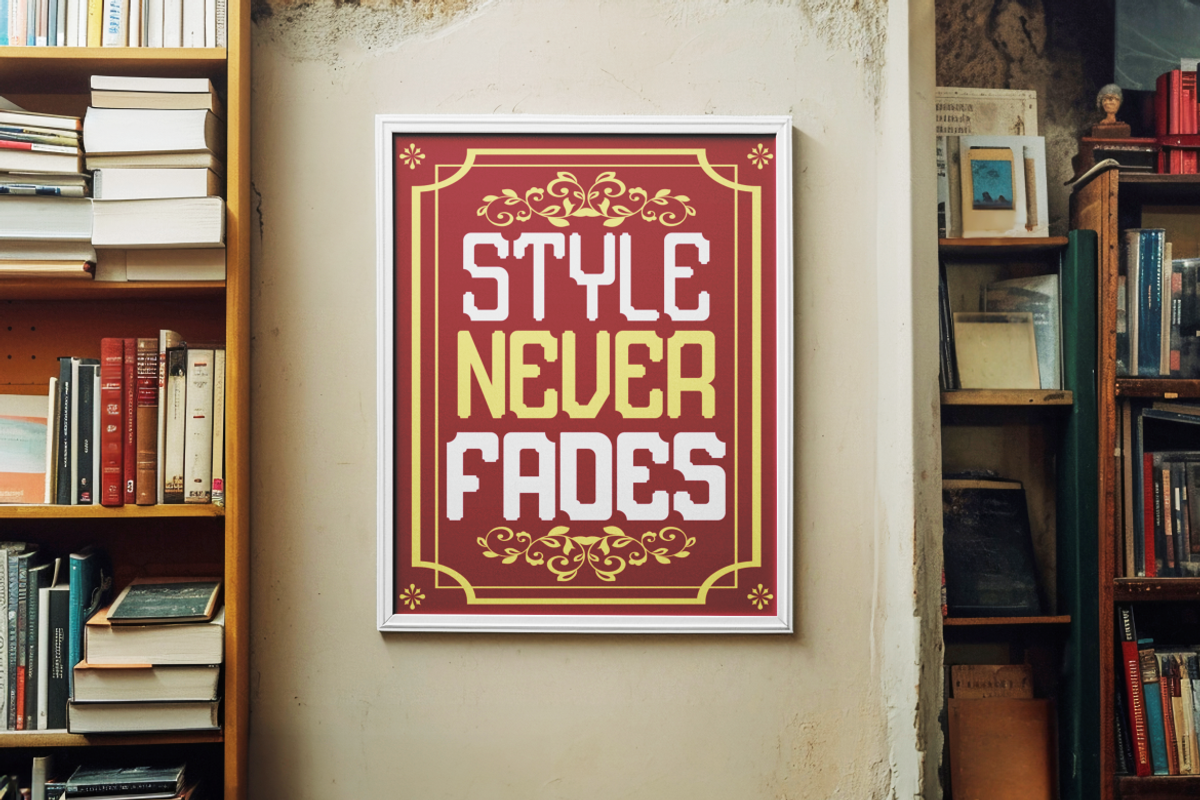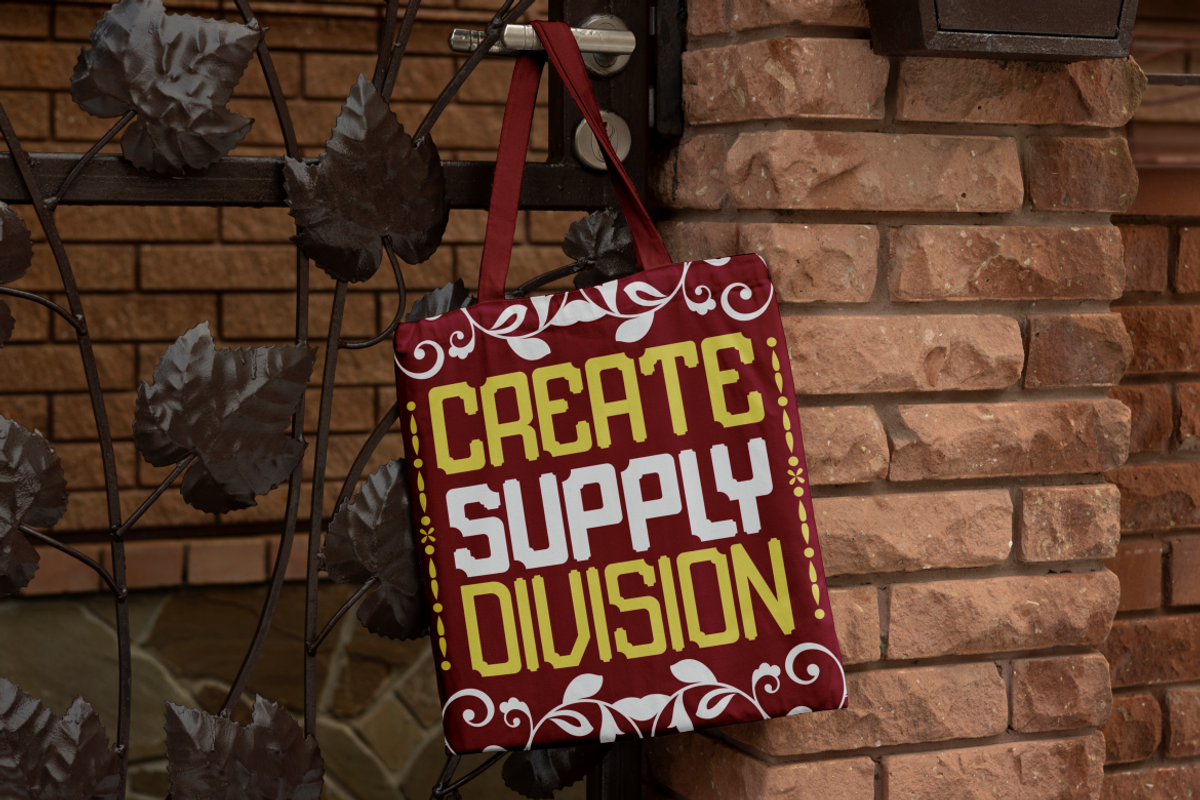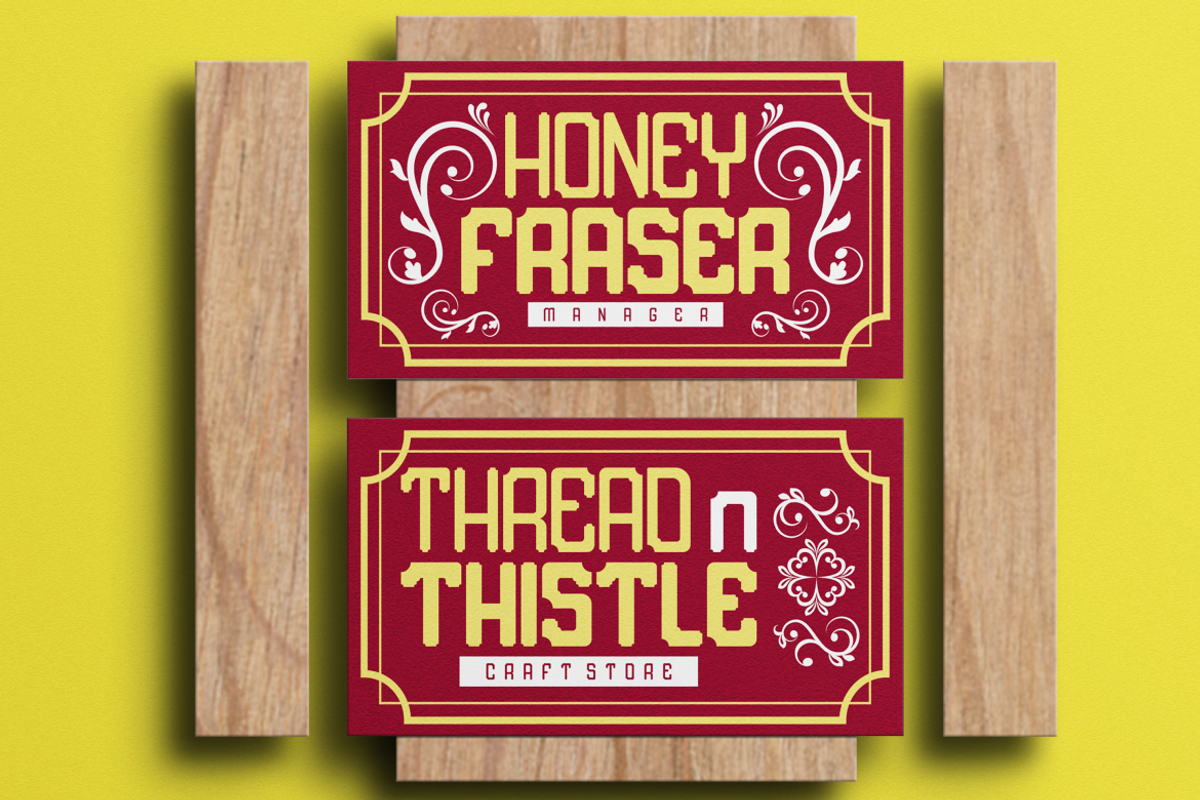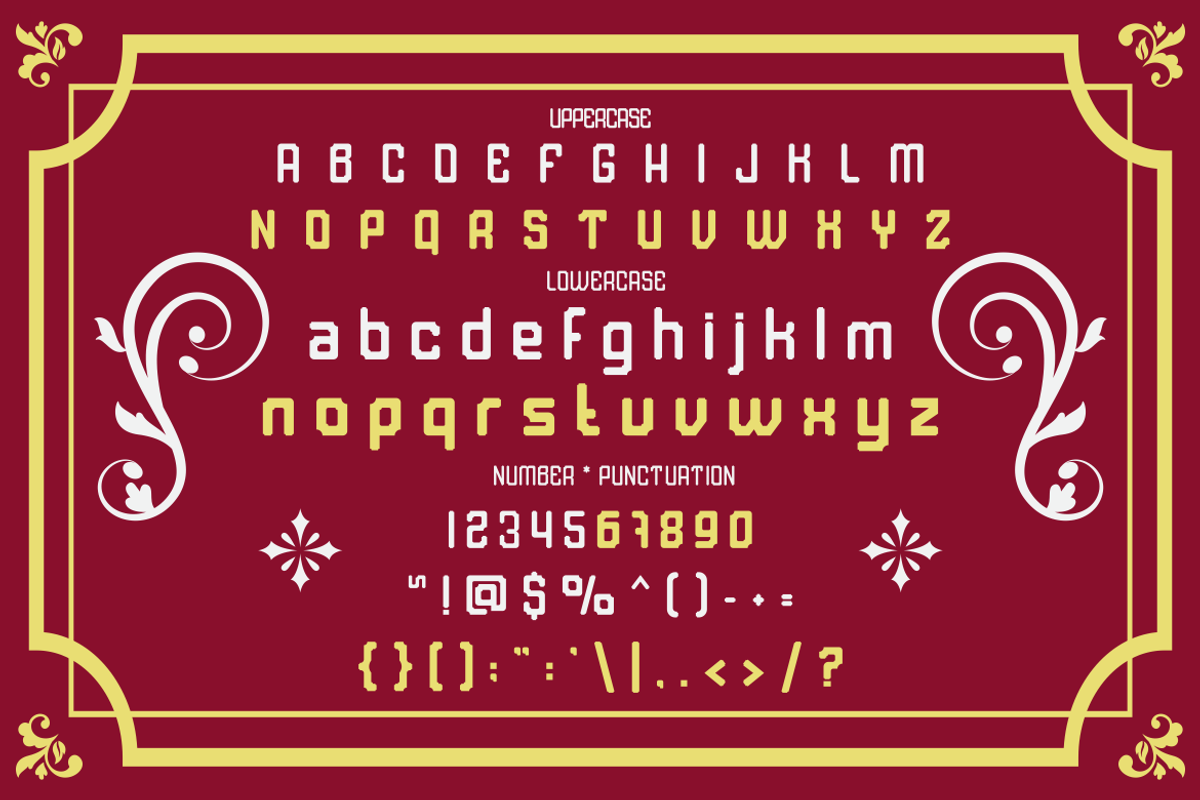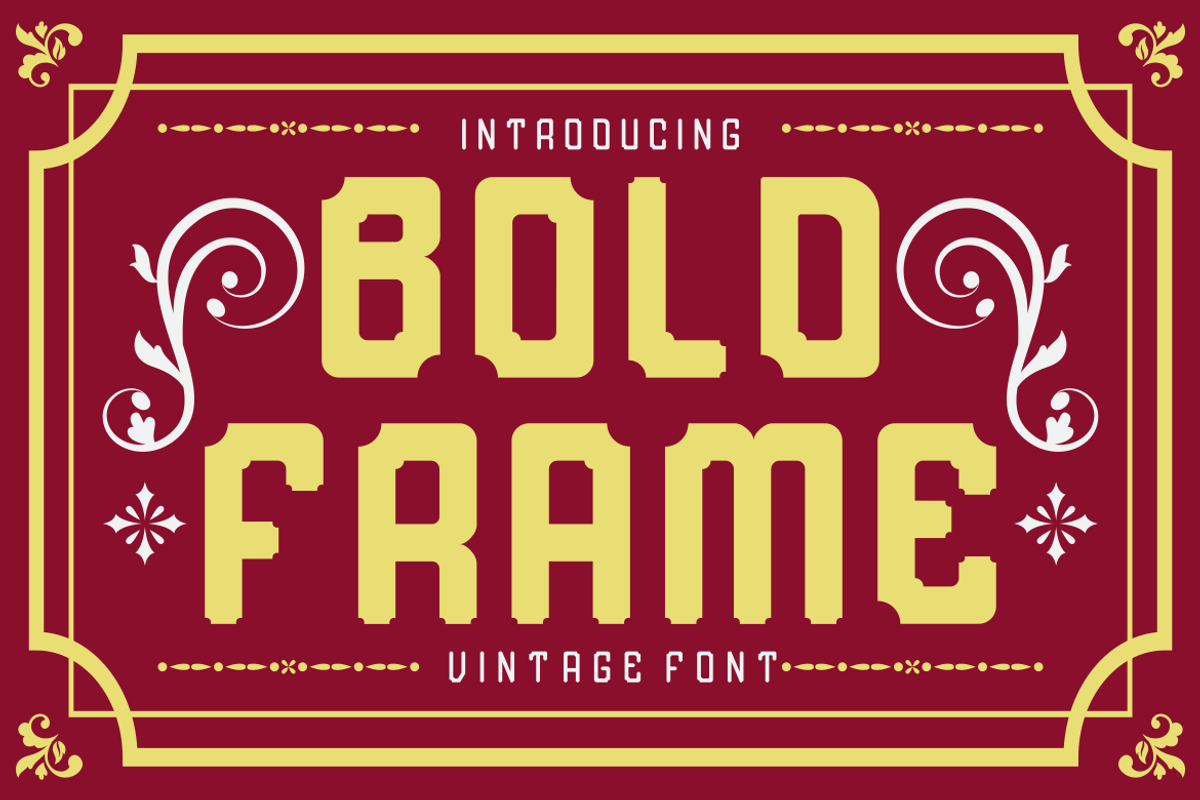
Bold Frame Vintage Font
Bold Frame Vintage Font is designed with strong geometric letterforms combined with ornate vintage detailing. Each character carries a bold block structure with squared edges and subtle cut-ins, giving it a sturdy retro look. The font style reflects the elegance of vintage signage and old posters, making it both decorative and functional. With uppercase and lowercase options, it balances versatility and visual impact. This typeface stands out in layouts through its sharp bold strokes, ornate frames, and harmonious curves, making it suitable for projects that demand a classic yet commanding presence.
Ideal for branding and creative design, Bold Frame Vintage Font works beautifully for logos, posters, packaging, invitations, and book covers. It brings a nostalgic flair while remaining readable and modern in execution. Designers can use it for craft projects, business cards, greeting cards, stickers, and even film titles. Its decorative yet strong appearance adds personality to visual compositions, ensuring your designs stay stylish and unforgettable. With its retro character and timeless strength, this font is a perfect choice for anyone looking to blend tradition with creativity.